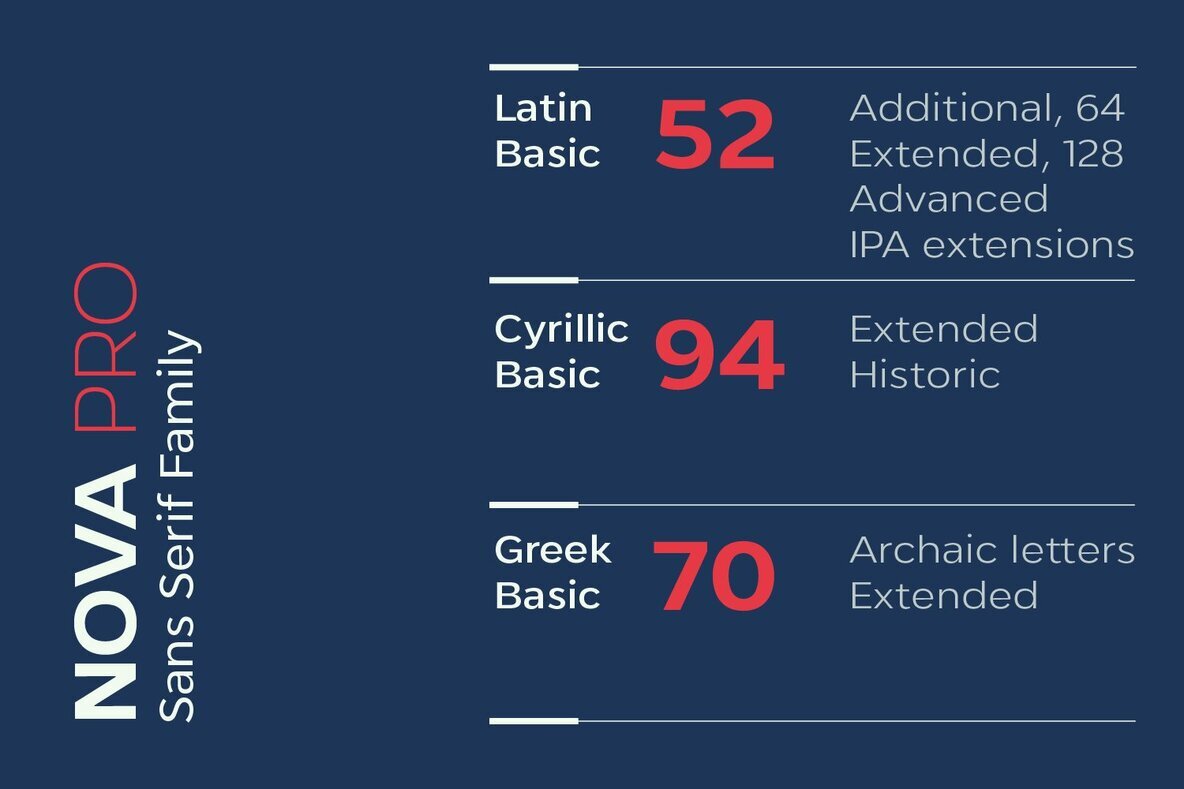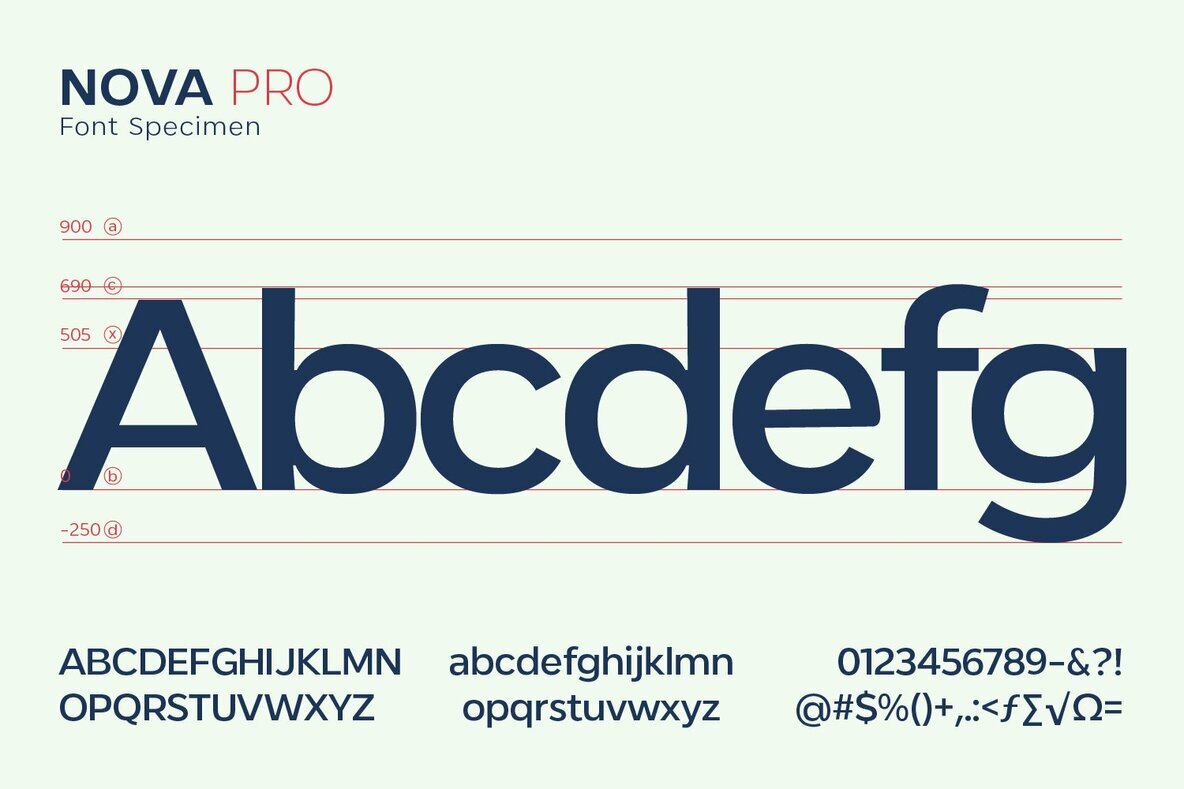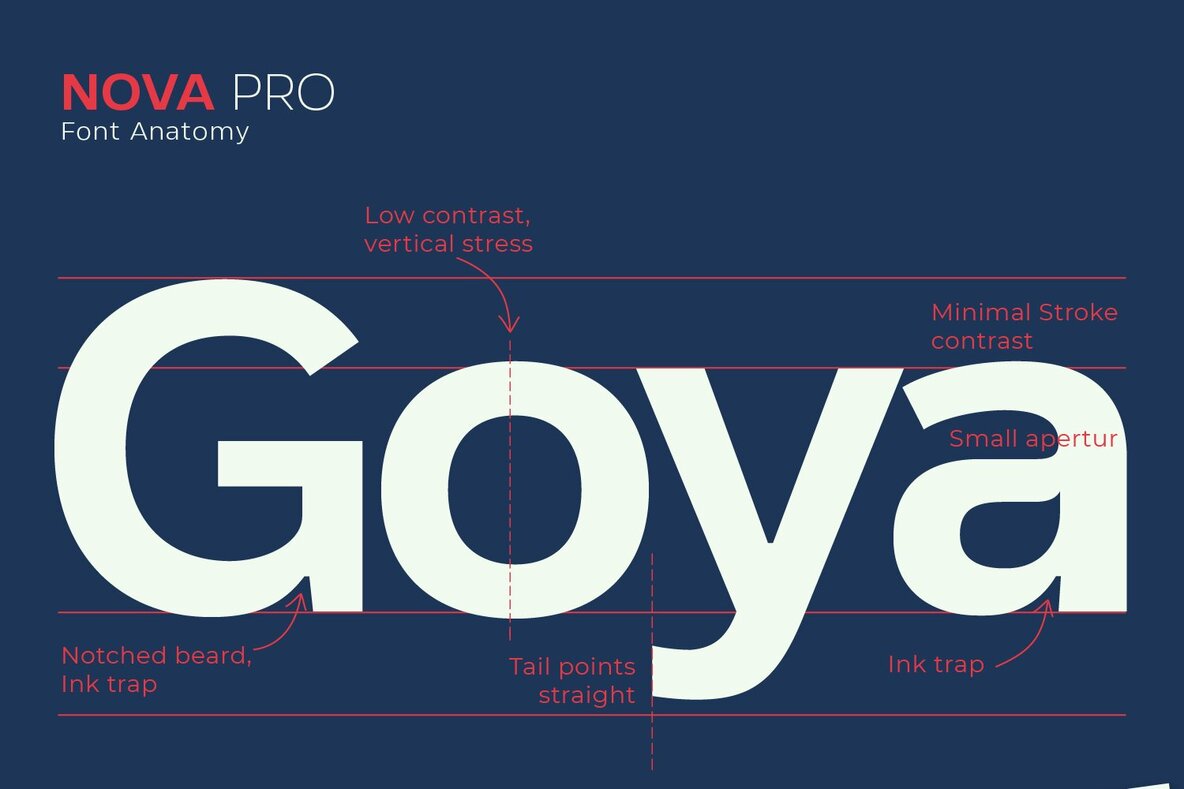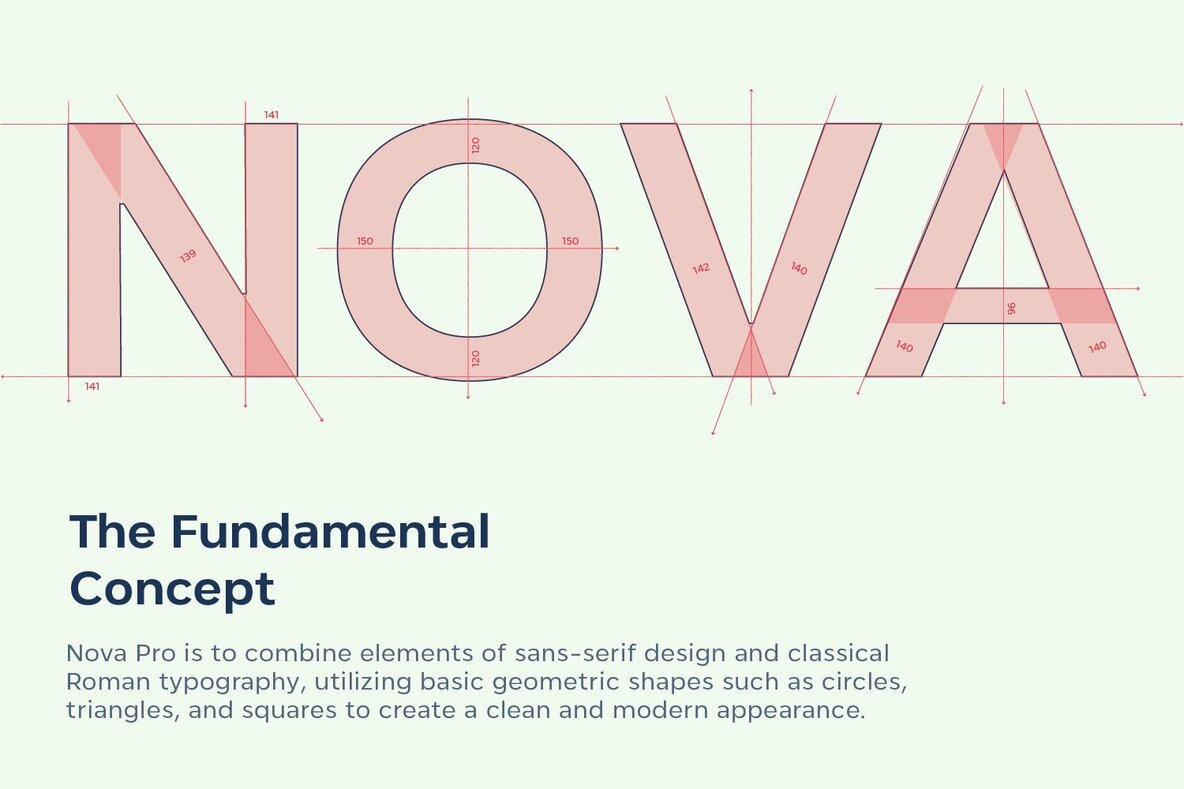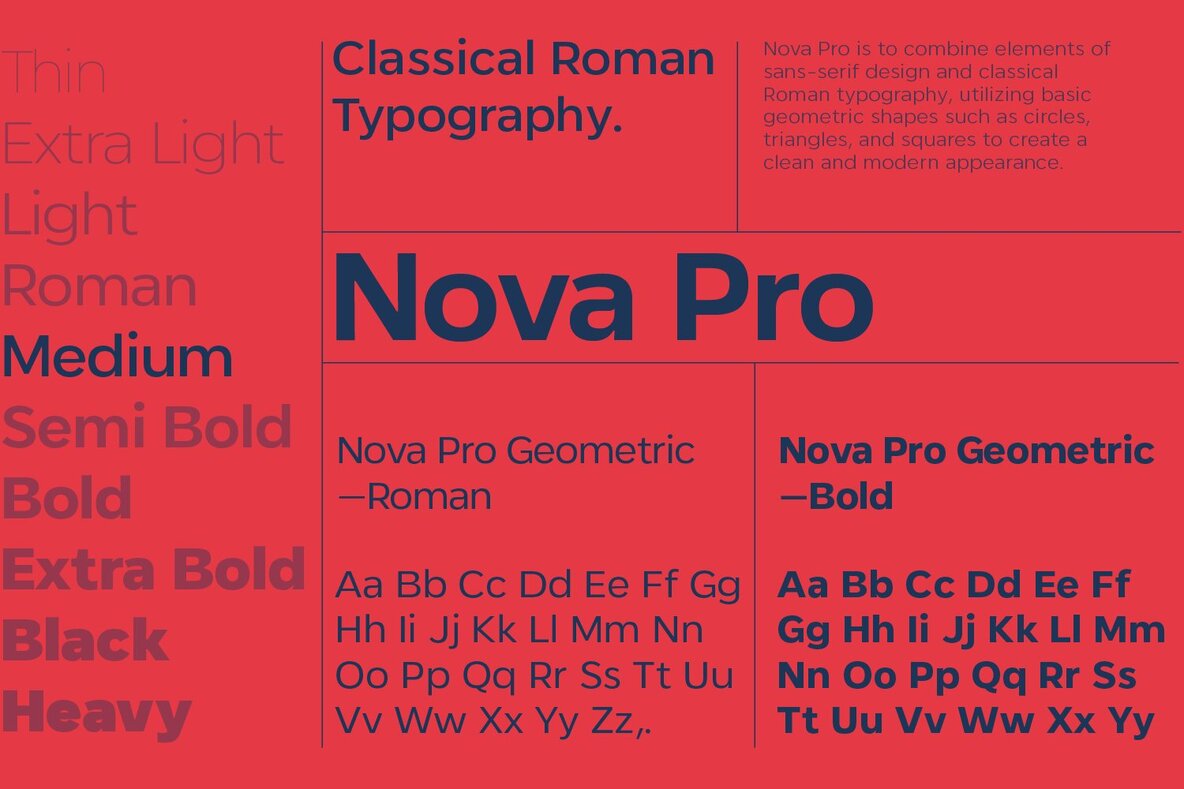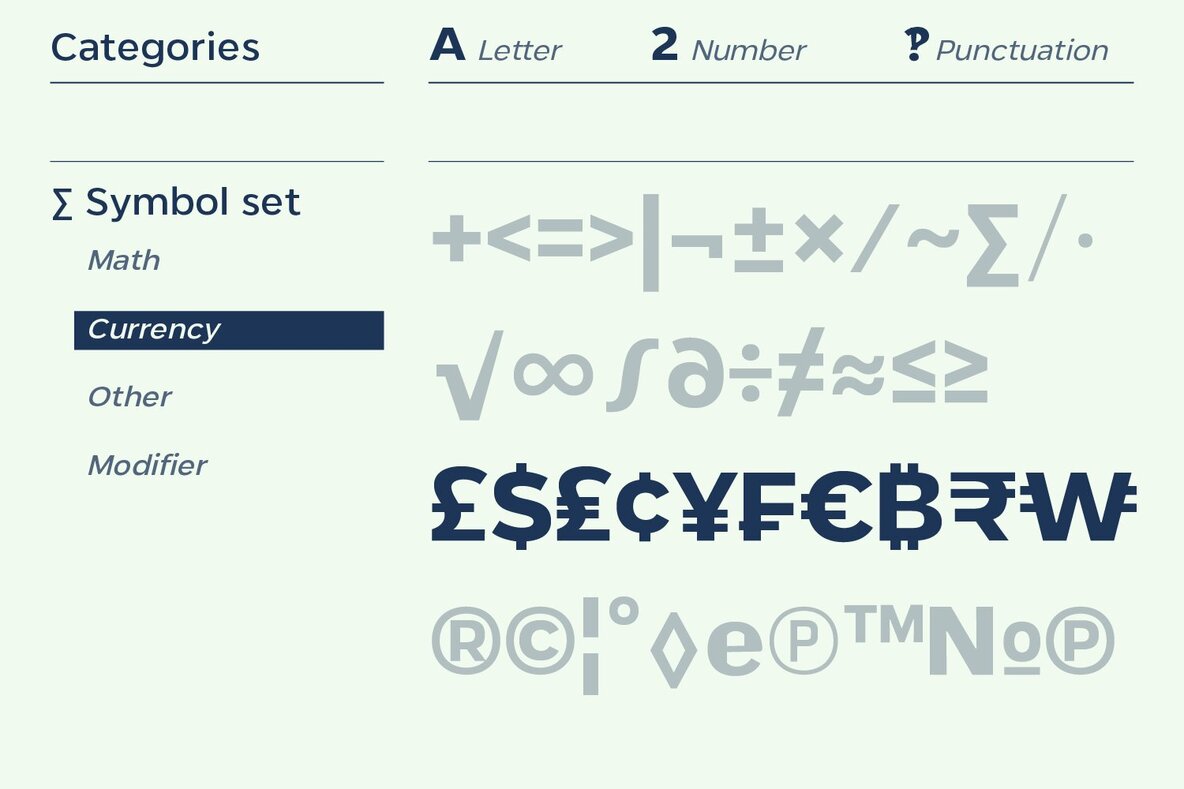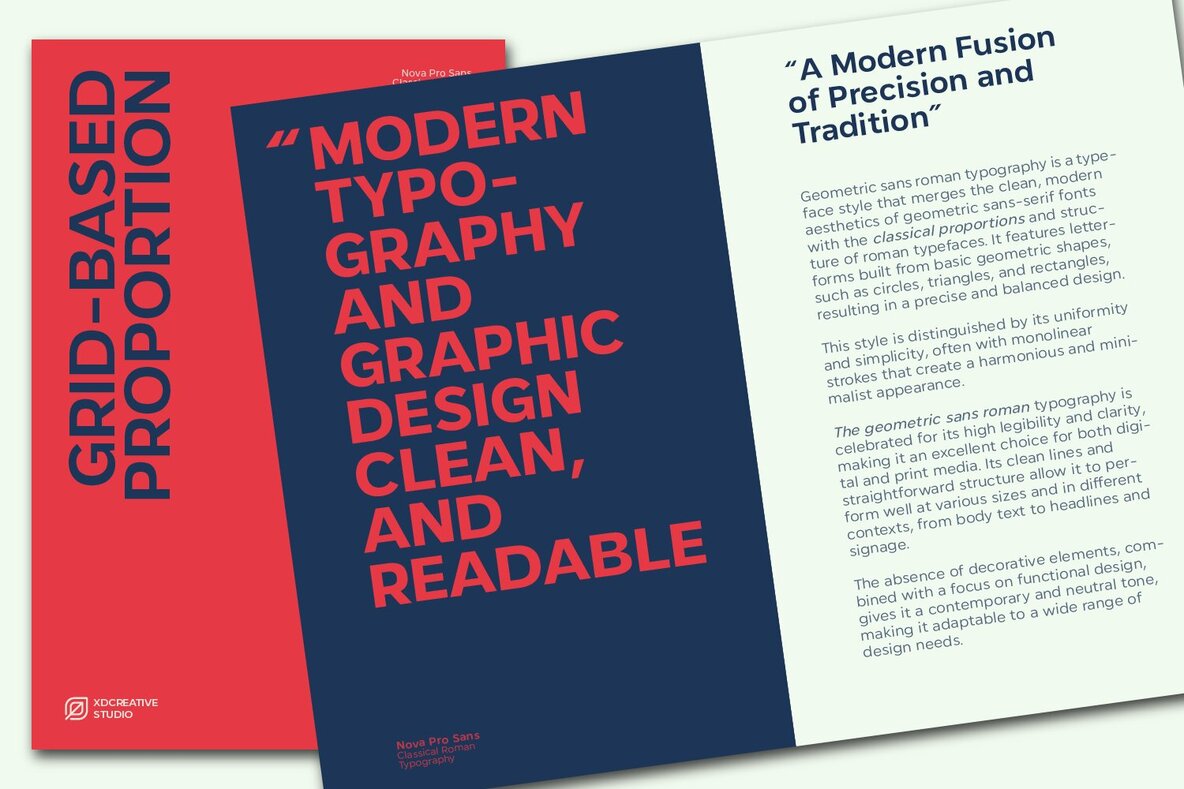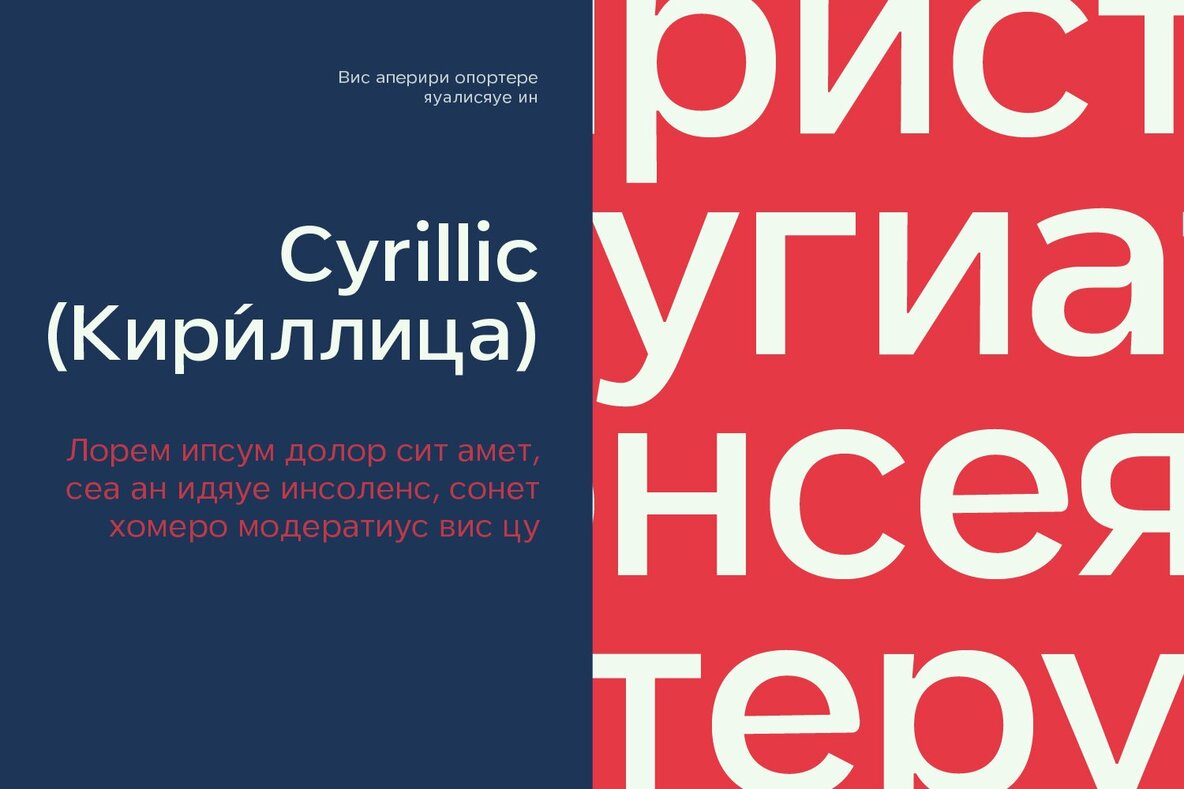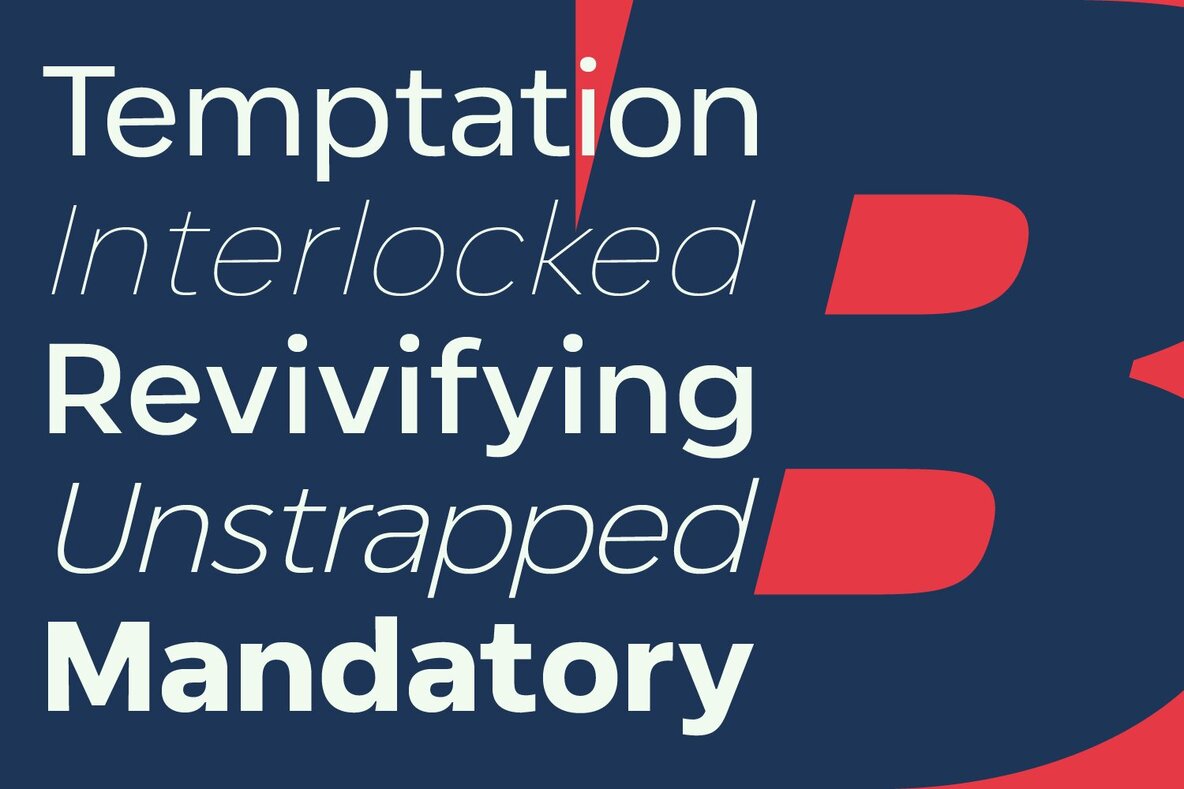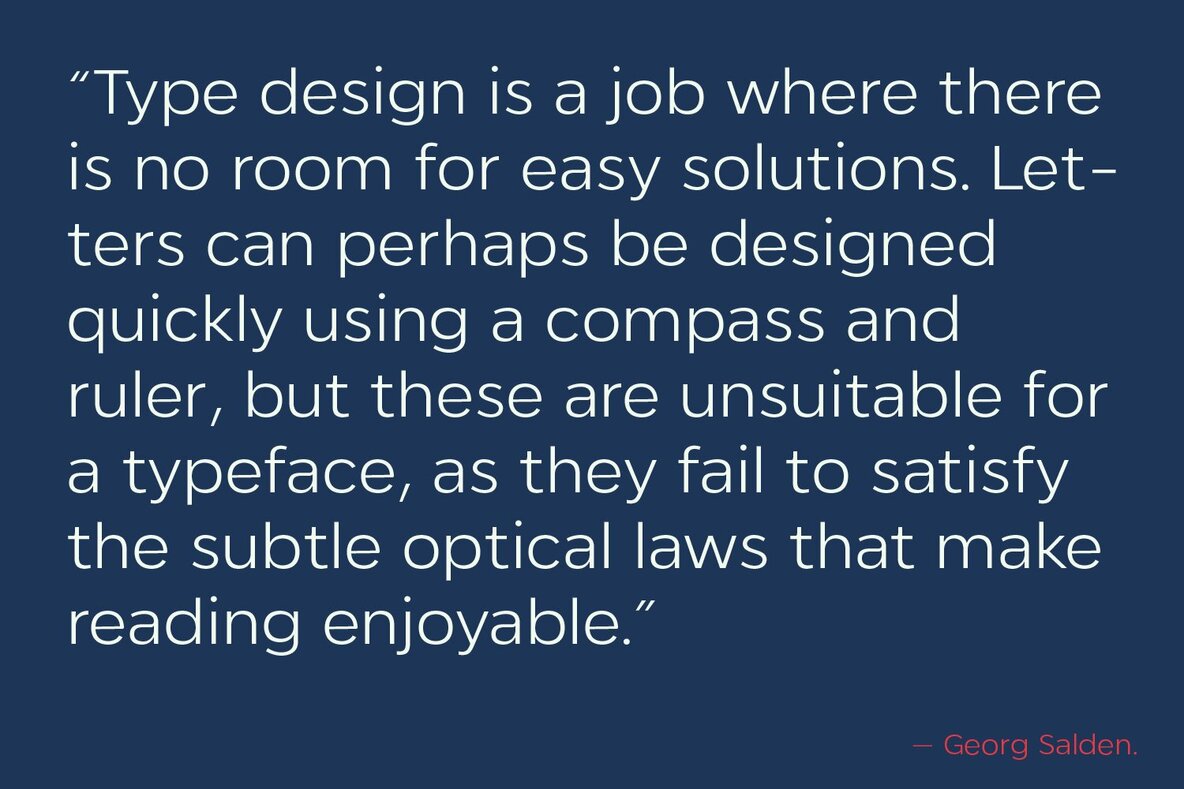
Nova Pro Font
Nova Pro blends the simplicity of sans-serif with the elegance of classical Roman typography, leveraging fundamental geometric shapes such as circles, triangles, and squares. This synergy results in a font that is both clean and modern, making it ideal for contemporary design projects.
One of Nova Pro’s defining characteristics is its high legibility, which ensures clarity and readability across various media sizes. The minimalist design eschews unnecessary ornamentation, offering a sleek and straightforward appearance. Versatile and adaptable, Nova Pro is suitable for a wide range of design contexts, from body text to headlines.
Additionally, Nova Pro includes lowercase alternates for characters such as a, f, g, h, k, l, m, n, r, and t, along with standard ligatures. These features enhance its application in modern graphic design and typography, delivering a professional and polished look. The font’s clean aesthetic makes it a preferred choice for designers seeking an elegant yet practical typeface.